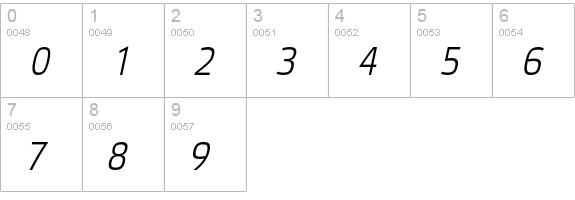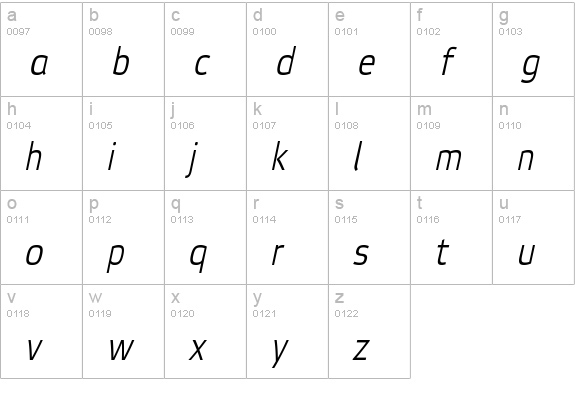
Etelka Narrow Light Pro Italic Font Details
Etelka Narrow Light Pro Italic is a refined, elegant, condensed-width, italic variant in the Etelka typeface family \xE2\x80\x94 well suited to elegant body text, refined sub-headings, and luxury branding.
Etelka Narrow Light Pro Italic font is a sleek and modern typeface that exudes elegance and sophistication. Its delicate and graceful italics add a touch of flair to any design project. With its narrow letterforms and light weight, this font is perfect for creating a refined and polished look. Best of all, Etelka Narrow Light Pro Italic font is available for free download at FontsMarket.com. Whether you're working on a branding project, a website design, or any other creative endeavor, this font will elevate your work with its stylish and contemporary feel. Don't miss out on the opportunity to add this exquisite font to your collection today!